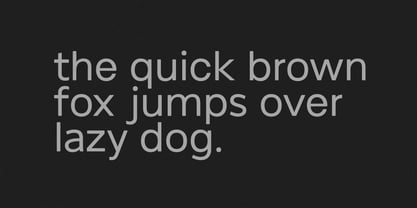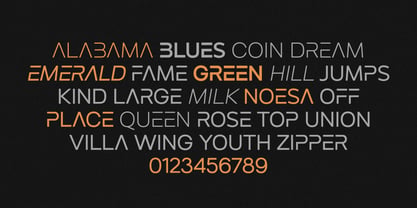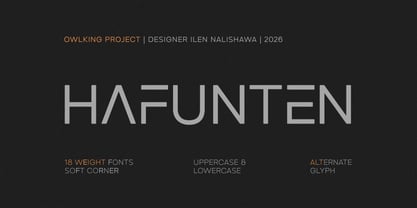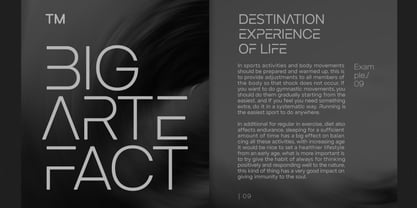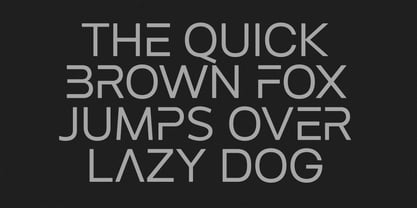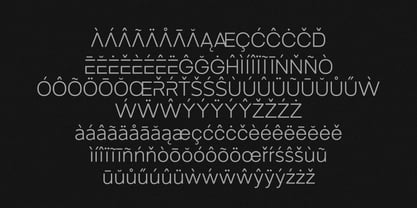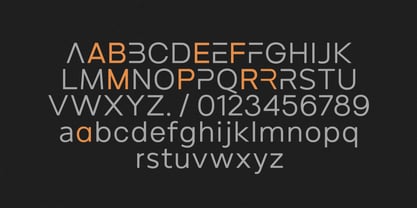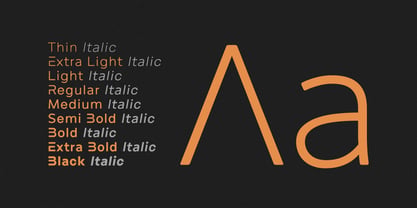
Hafunten
La familia tipográfica Hafunten fue diseñada por Darhilen y publicada por Owl king project. Hafunten contiene 18 estilos y opciones de paquete familiar. Más información sobre esta familia
HAFUNTEN, a meticulously crafted sans serif font family that seamlessly blends futuristic geometry with a warm, approachable touch. This typeface stands out with its unique soft corner design and striking alternative glyphs, offering a perfect balance between sleek minimalism and bold creative expression. With it's clean lines and distinctive architectural cuts such as the iconic crossbar less 'A' and stylized 'B' and 'E' F' R' M' a'. HAFUNTEN transitions effortlessly from high impact display headlines to smooth, highly readable body text.
Owlking is a typographic project founded by llen Nalishawa, shaped by long term practice across graphic design, photography, and film. Since 2006, Owlking has approached typography as a visual system, where type functions not as decoration, but as structure. Each typeface is developed as a coherent family, designed to support consistency, flexibility, and character across branding, editorial, and visual narratives. The project focuses on building type systems with longevity, prioritizing clarity, balance, and adaptability over short-lived trends.